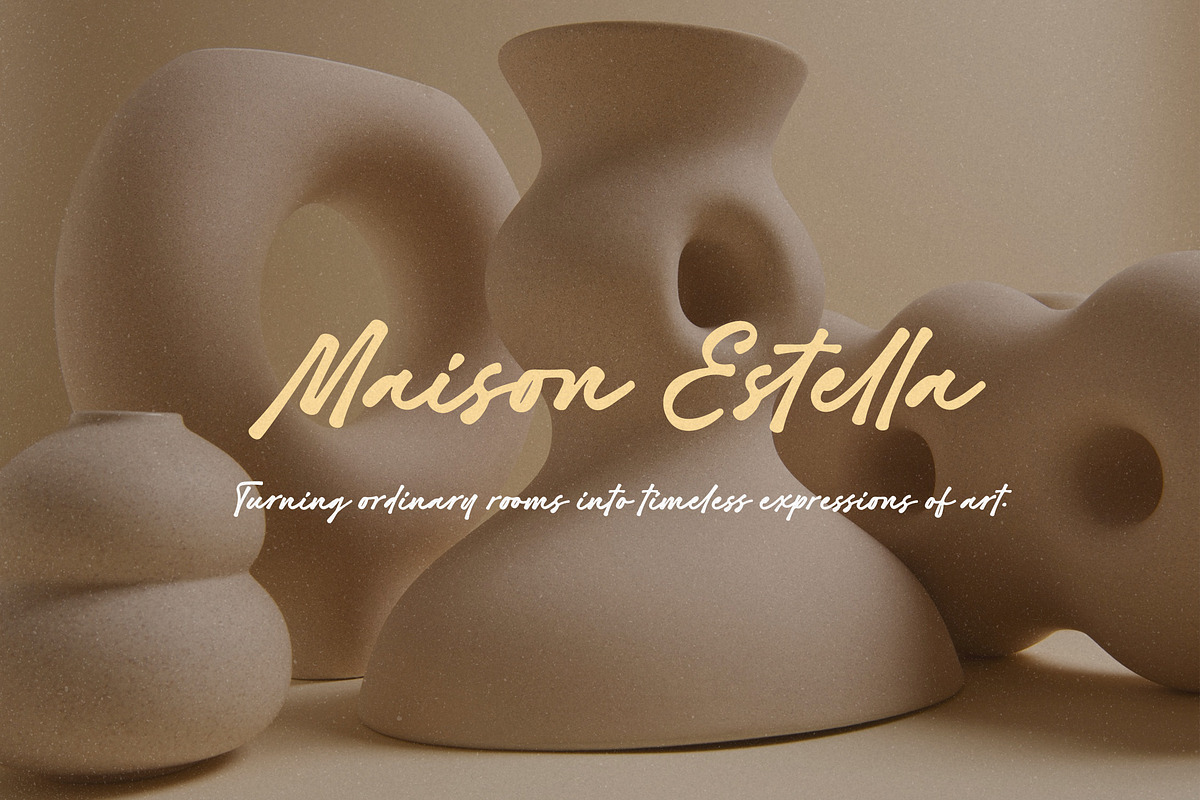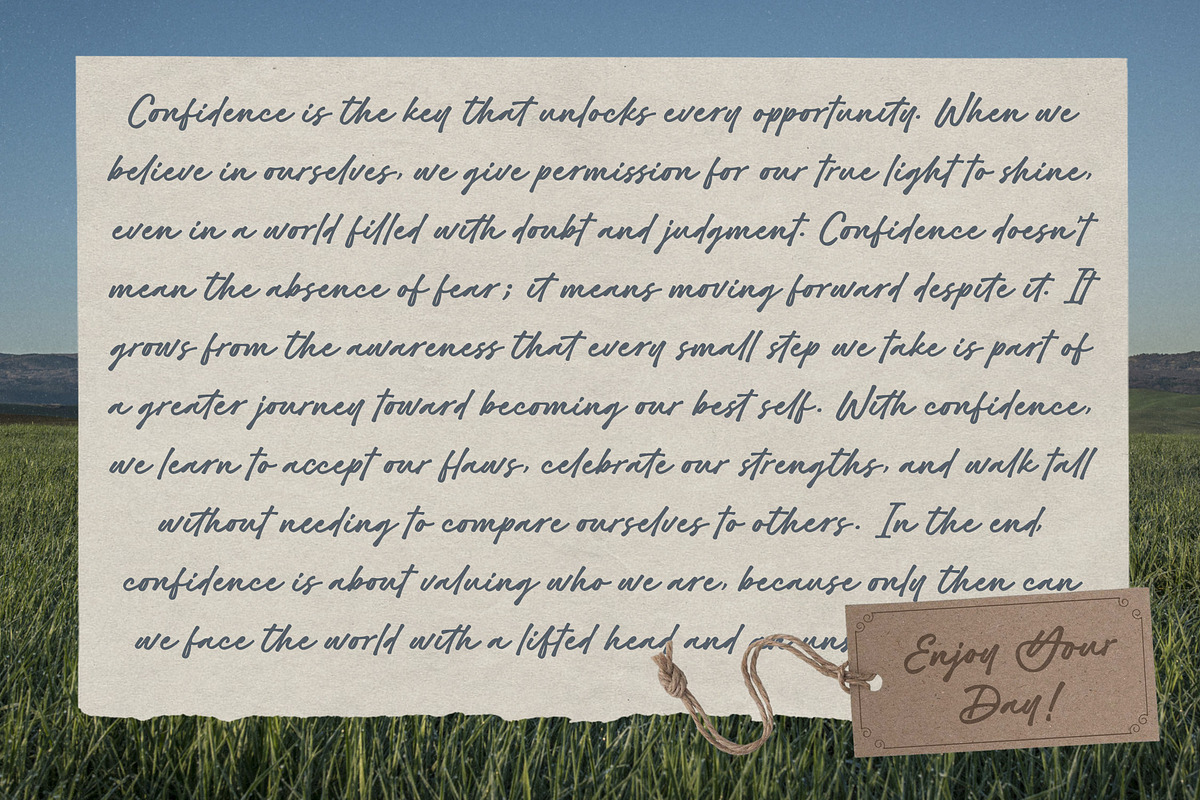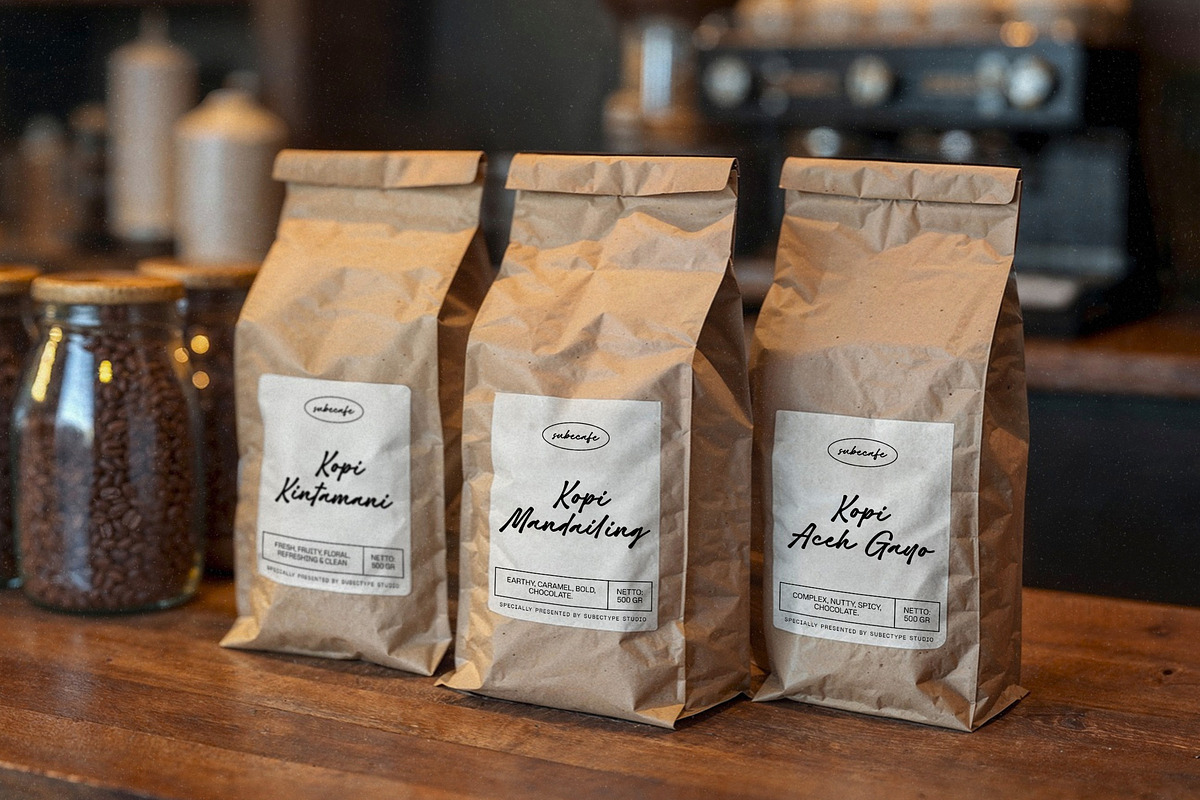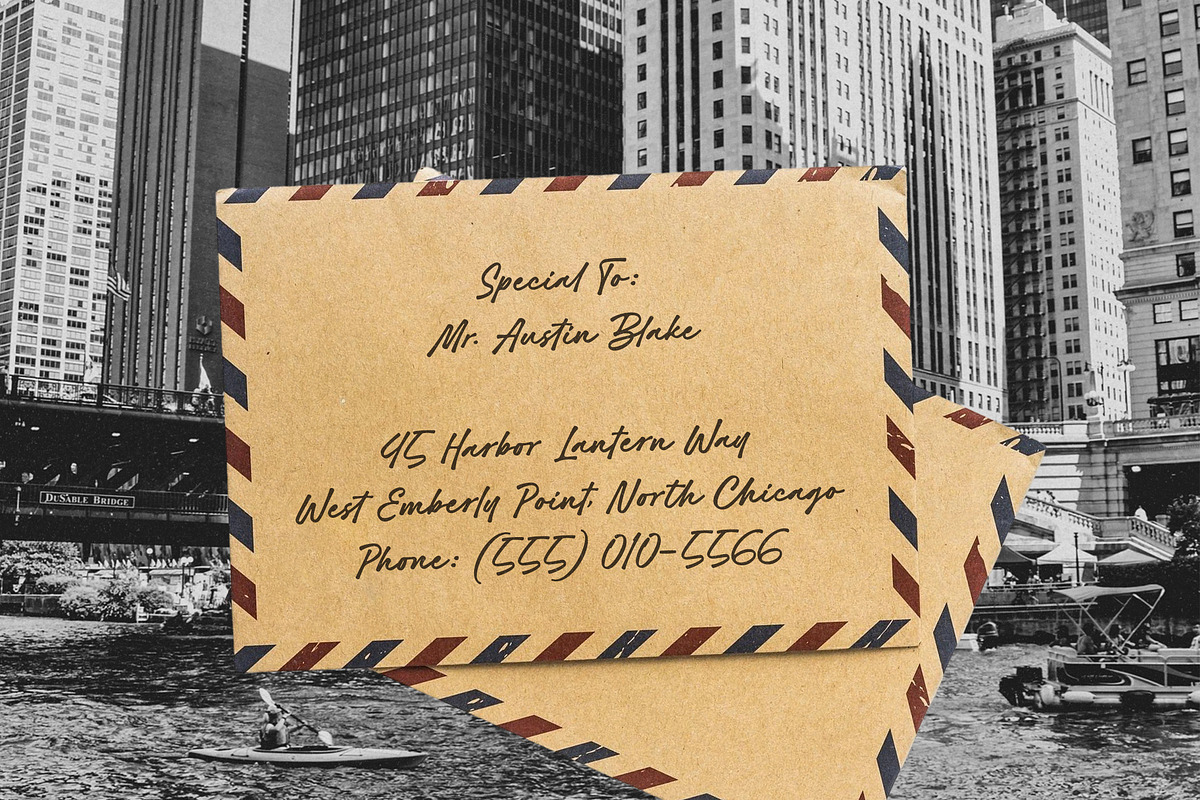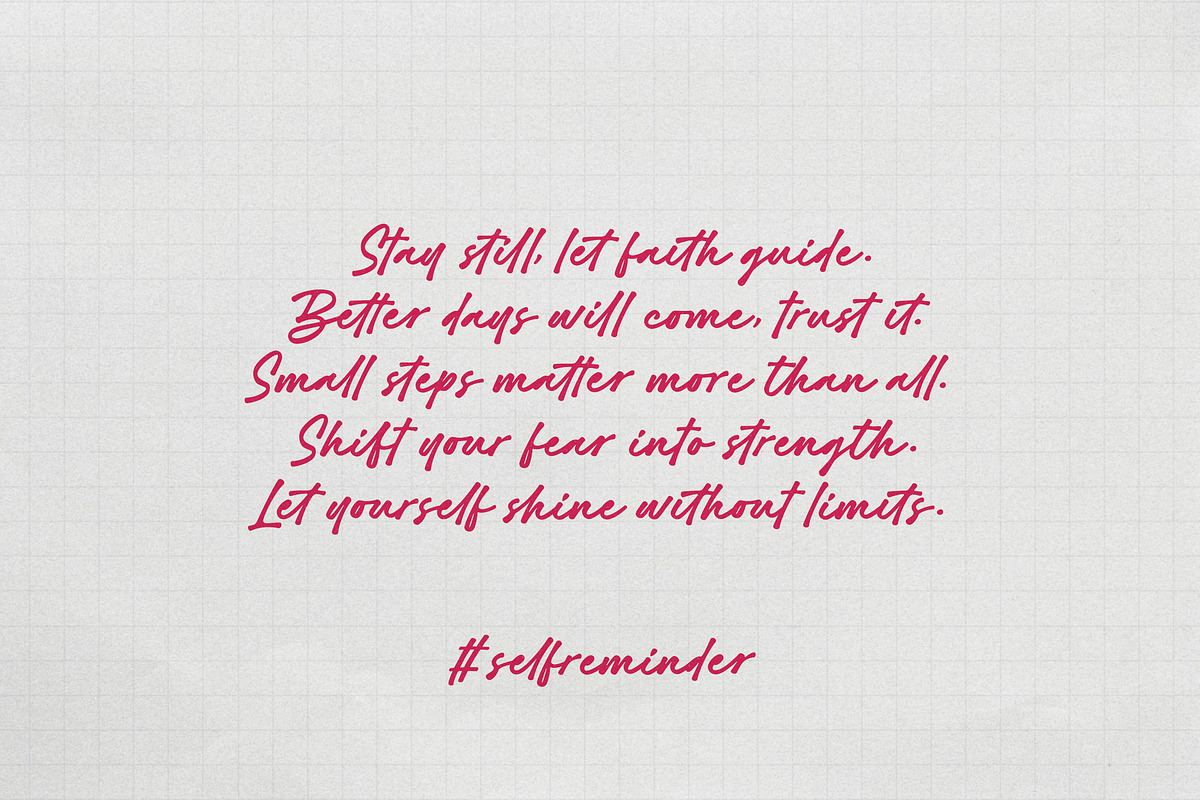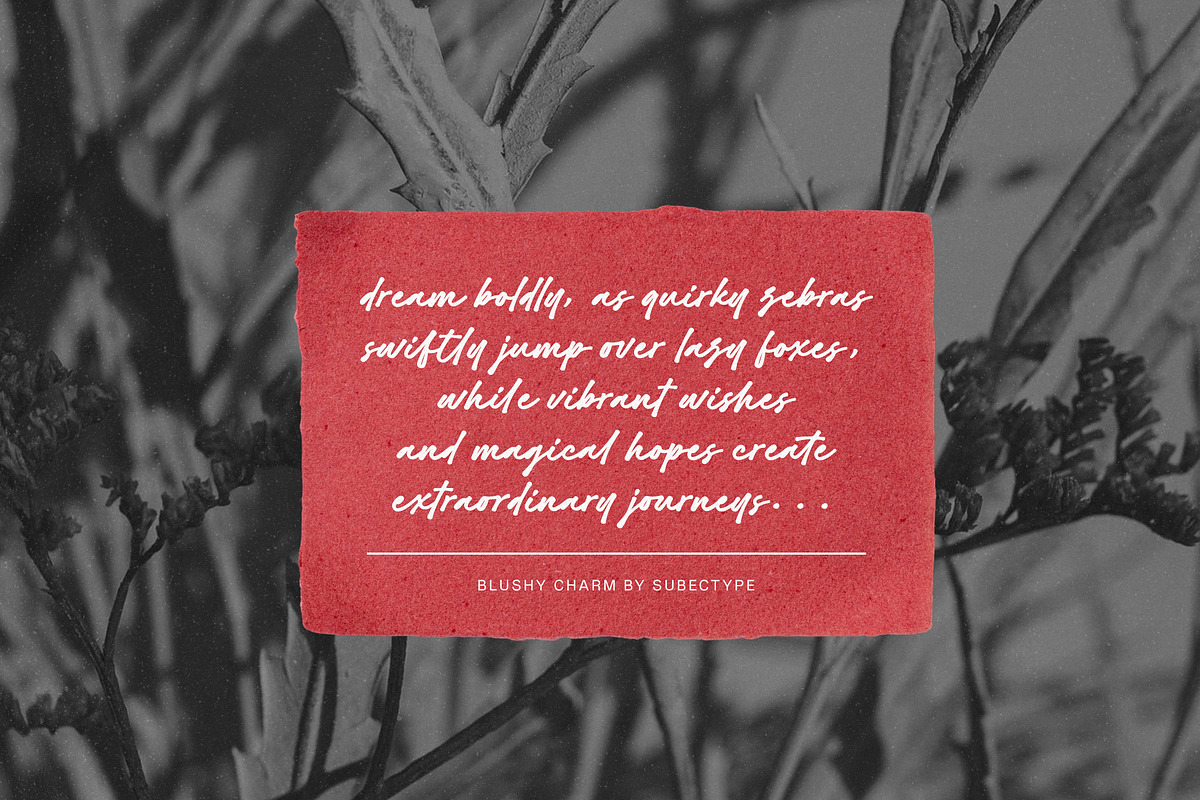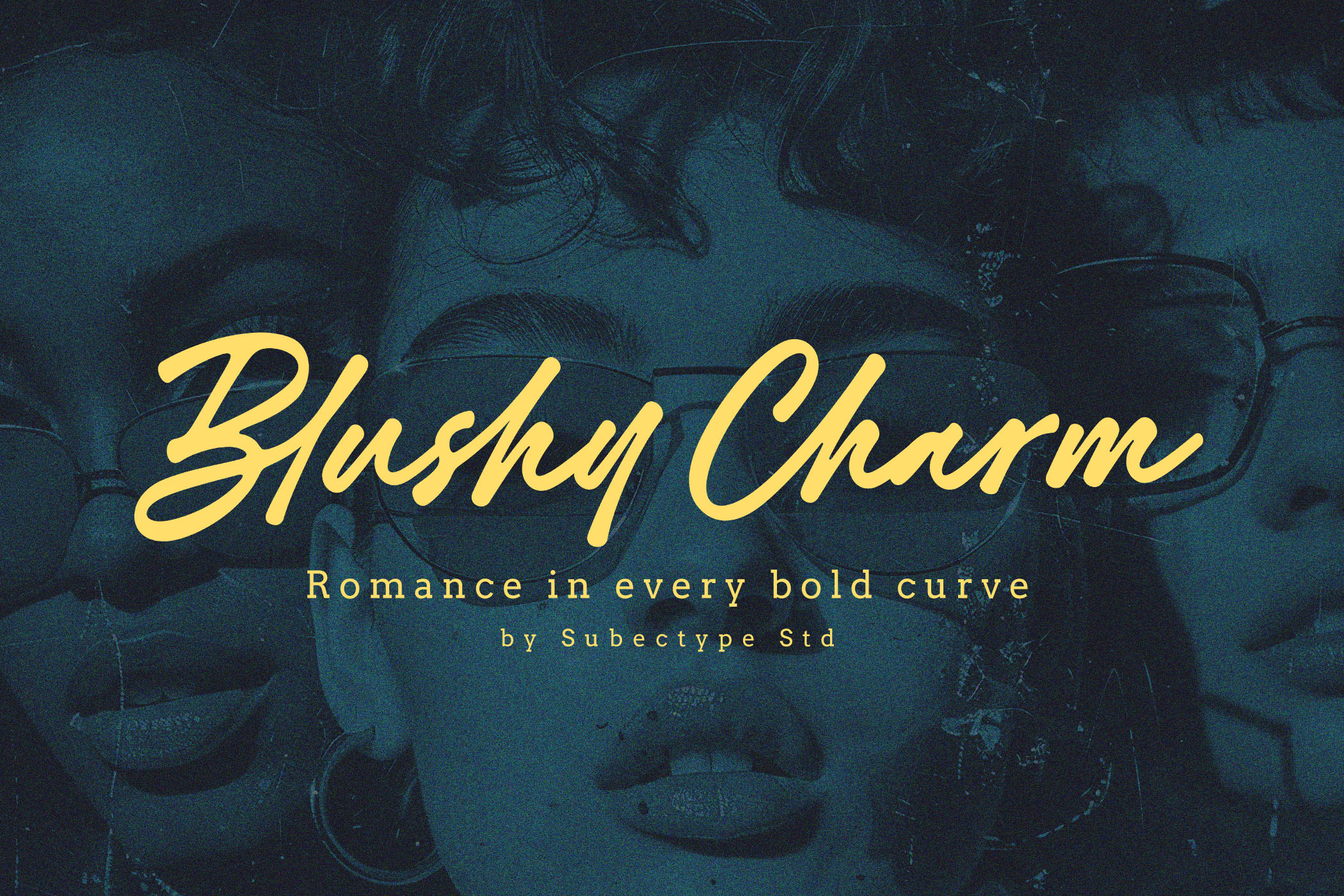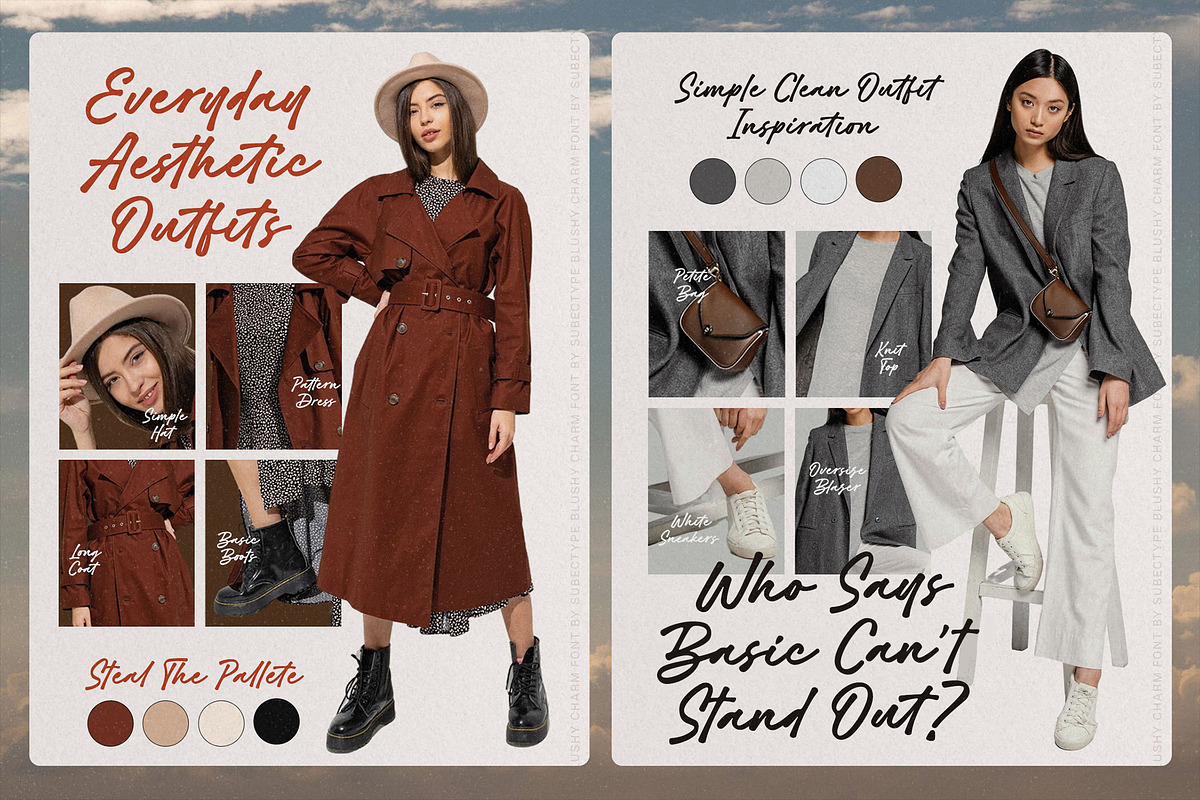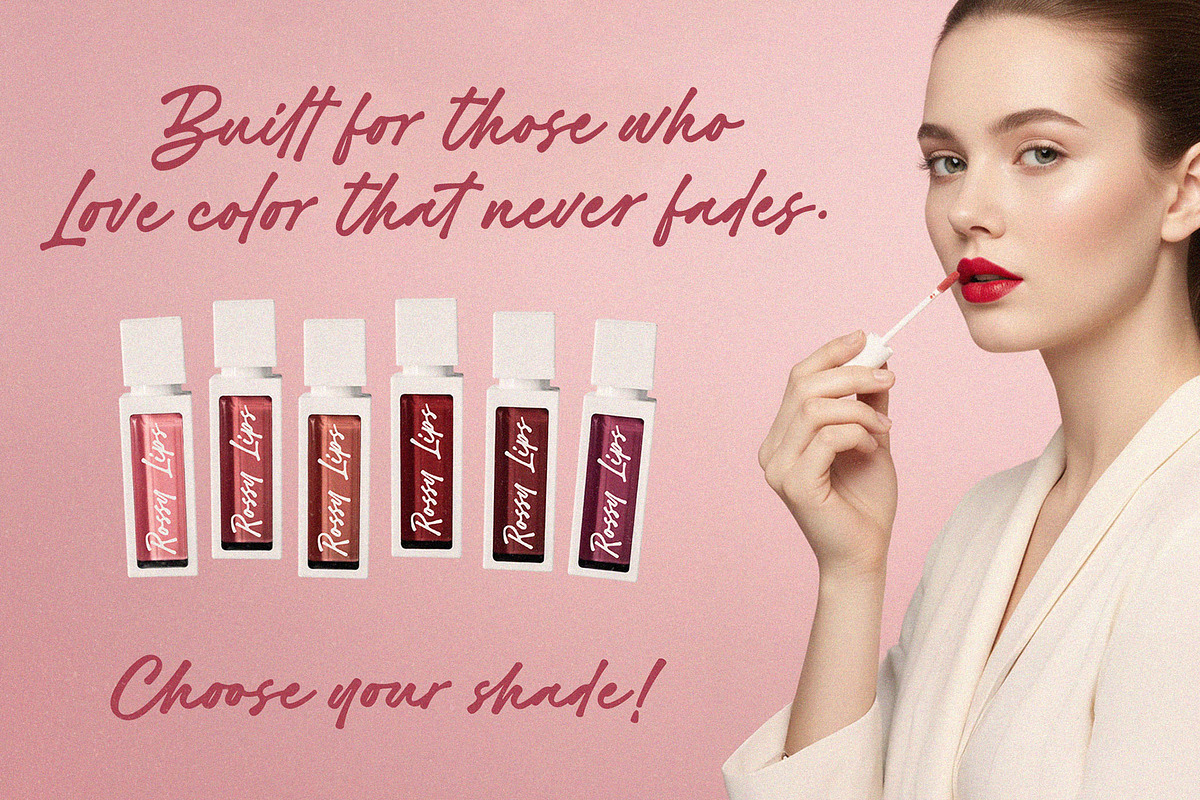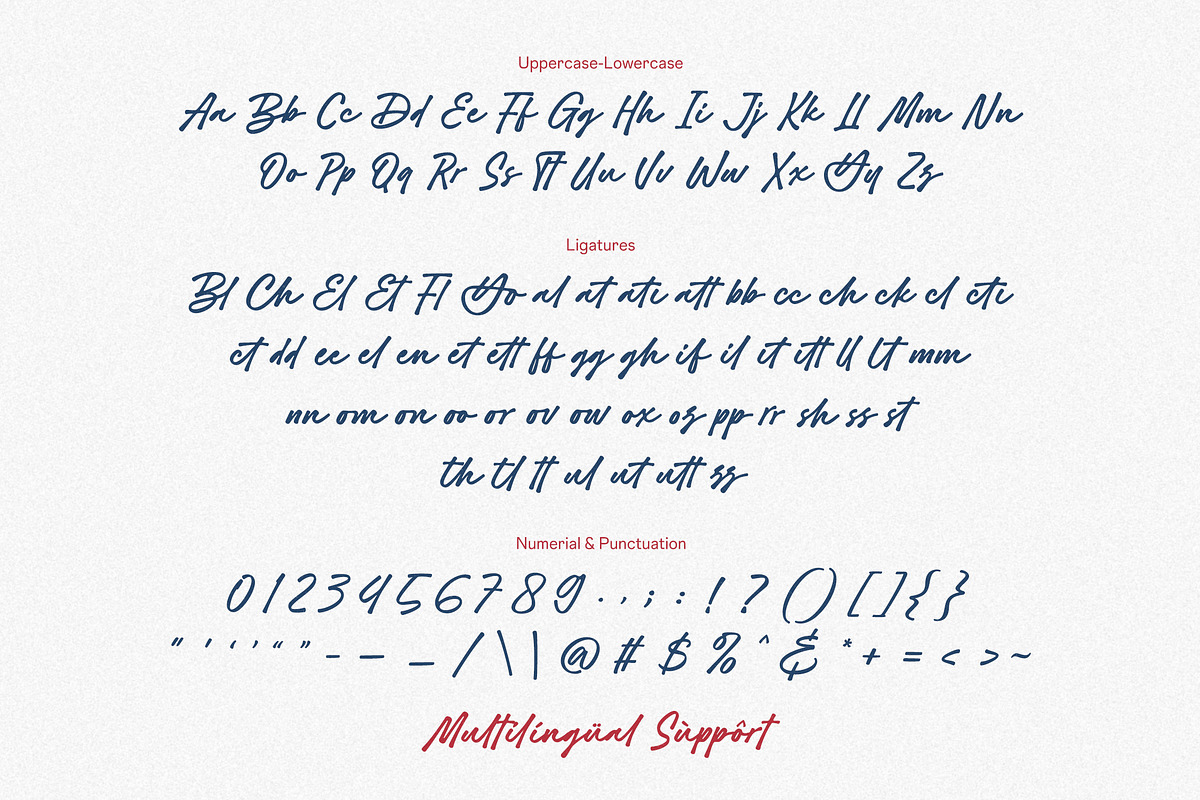
Blushy Charm - Bold Script Font
Introducing a handwritten font that captures the effortless beauty of natural handwriting. With its smooth strokes and relaxed rhythm, this Bold Script Font brings a personal, friendly touch to any design from branding and packaging to wedding invites and social media quotes.
Casual yet refined, this font balances modern simplicity with classic warmth. Whether you're crafting a heartfelt message or creating stylish visuals, its timeless flow will always feel fresh, familiar, and beautifully human.